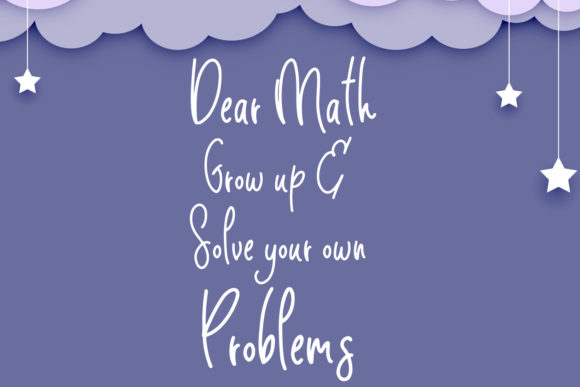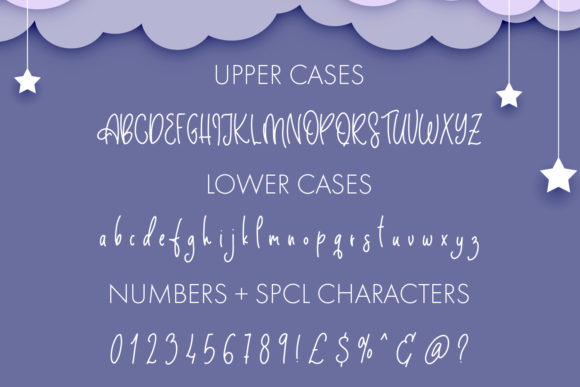
Without Me Font
db-ku.com - Script & Handwritten -- Without Me is a sweet and friendly handwritten font. Its natural and unique style makes it incredibly fitting to a large pool of designs. The only limit is your imagination!